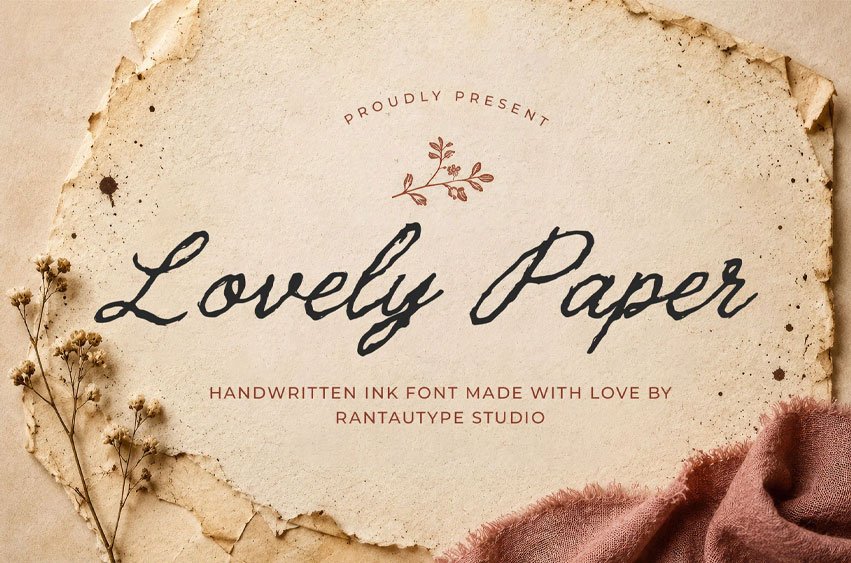
Lovely Paper Font is Ink Handwritten font captures the timeless beauty of authentic penmanship, blending elegance, warmth, and artistic expression into every letterform. Designed with flowing strokes and natural movement, the font mimics the look of handwritten ink on textured paper, creating a personal and sophisticated appearance that feels both classic and contemporary.
Lovely paper is a perfect choice for any creative endeavor, chic, lifestyle design such as logos, title, watermark on photography, cover, branding, display and magazine, wedding event, corporate brand, quotes, album cover, business card, business project, company branding and more project with handwritten taste.